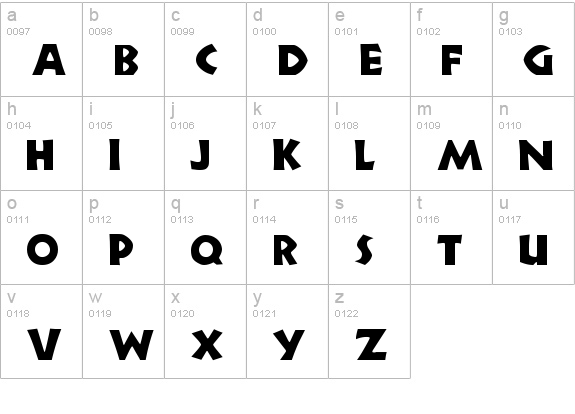
Neuland Regular is the standard, neutral variant in the Neuland typeface family \xE2\x80\x94 well suited to general body text, paragraphs, and standard typographic work.
Neuland Regular is a classic and timeless font that exudes a sense of strength and stability. With its bold lines and distinctive geometric shapes, Neuland Regular is perfect for making a statement in any design project. Whether used for headlines, logos, or branding materials, this font commands attention and leaves a lasting impression. What makes Neuland Regular even more appealing is that it is available for free download at FontsMarket.com. This means that you can easily access and use this stunning font in your projects without any cost. With its versatility and striking appearance, Neuland Regular is a must-have addition to any designer's toolkit. Download it today and elevate your designs with this powerful and impactful typeface.